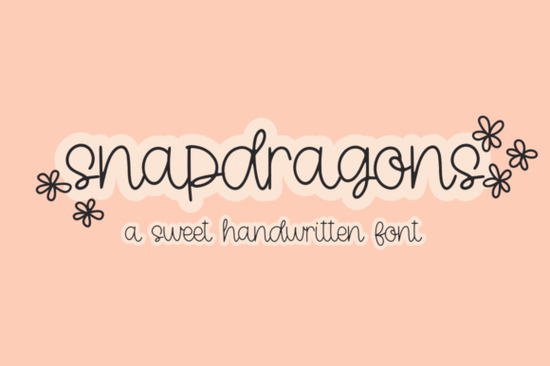
Finding the right typeface for a craft project often comes down to readability and smooth lines. If you need a charming, legible script for your next design, the Snapdragons Font is a highly practical choice. This handwritten style features elegant curves and continuous strokes, making it especially useful for Cricut users and small business owners who want a personal touch without sacrificing clarity. Whether you are making custom decals or designing product packaging, having a reliable cursive typeface saves you time and frustration.
What makes a handwritten font easy to cut on a Cricut?
When you are cutting vinyl or cardstock, thin or broken lines can cause the machine to snag or tear the material. A good cursive typeface needs thick, consistent strokes and well-connected letters. This font handles the cutting process well because the curves are smooth and the baseline is steady. If you are used to working with casual notebook styles, you will notice that this particular script feels a bit more polished and structured. It gives you that handmade look while keeping the weeding process relatively painless.
For those who prefer a more rustic vibe for their wood signs, you might also explore rustic farmhouse lettering for different projects. However, this specific typeface shines when you need something sweet, approachable, and clean for detailed vinyl cuts.
How can small businesses use cursive typefaces for branding?
Small business owners and print-on-demand sellers often need typography that feels personal but remains professional. You want your customers to feel a connection to your brand, which is why handwritten elements work so well on product tags, thank-you cards, and custom mailer boxes. While modern calligraphy alternatives might feel a bit too formal or fancy for everyday retail items, this adorable script keeps things friendly and accessible.
It is highly readable at smaller sizes, which is crucial when you are printing labels for candles, handmade soaps, or baked goods. The smooth strokes ensure that the ink prints clearly, even on textured paper or kraft cardstock.
Which craft projects work best with cute script letters?
Because of its bouncy and cheerful rhythm, this typeface is incredibly versatile for both digital and physical products. Here are a few practical ways crafters and designers use it:
- Wedding and party invitations: The elegant curves add a romantic feel without looking overly traditional or stiff.
- Custom apparel: It cuts cleanly on heat transfer vinyl for baby onesies, tote bags, or family reunion shirts.
- Greeting cards: Perfect for writing short, heartfelt messages on the front of handmade paper cards.
- Mug and tumbler designs: The smooth strokes wrap nicely around curved surfaces when applied as permanent decals.
If you are planning a specific seasonal collection for your shop, you can easily mix this font with festive holiday scripts for winter product lines. Alternatively, pair it with cheerful seasonal pairings when designing for spring and summer craft markets.
How do you pair a cursive font with other typefaces?
A common mistake in design is using too many script fonts at once. To keep your layouts clean, pair this handwritten style with a simple, bold sans-serif or a classic typewriter font. Use the cursive letters for the main focal point, like a name or a short greeting, and use the simpler font for the supporting details like dates, times, or addresses. This creates a nice visual contrast and ensures your text is easy to read from a distance.
Quick checklist for your next design project
Before you send your file to the printer or hit cut on your machine, run through this quick list to ensure the best results:
- Check the connections: Make sure all the letters are properly joined if you are cutting it as a single continuous piece of vinyl.
- Test the size: Print a small test page or cut a scrap piece to ensure the thin loops do not break at your desired scale.
- Weld your text: If you are using design software like Cricut Design Space, remember to weld the words together so they cut as one unified shape.
- Contrast your colors: Pick a background color that makes the delicate curves stand out clearly.
Taking a few extra minutes to prep your file will save you from wasting materials and help your finished crafts look professional and polished.